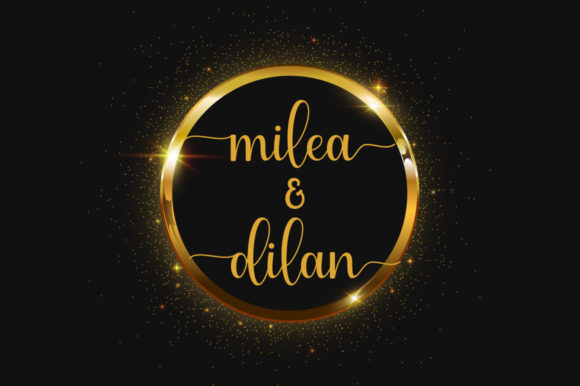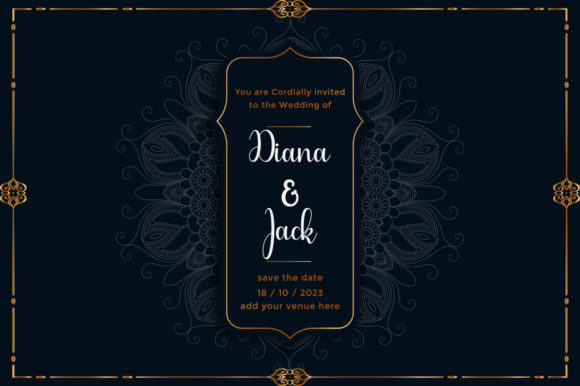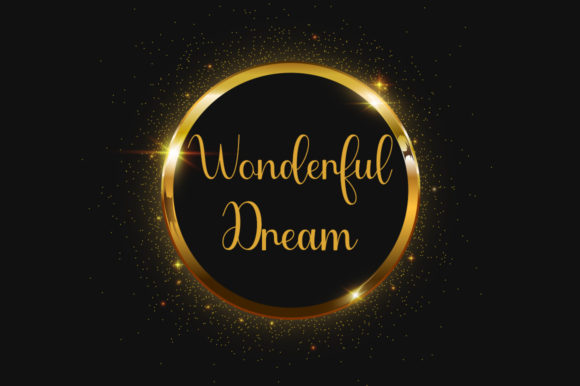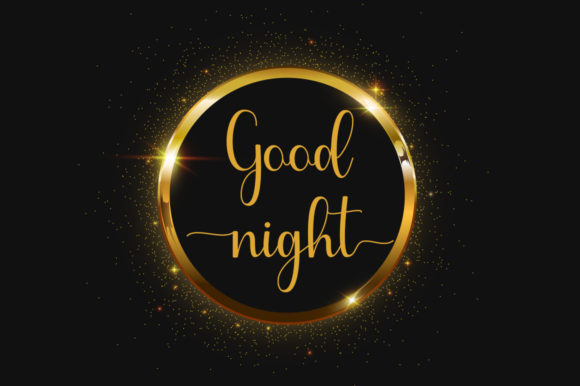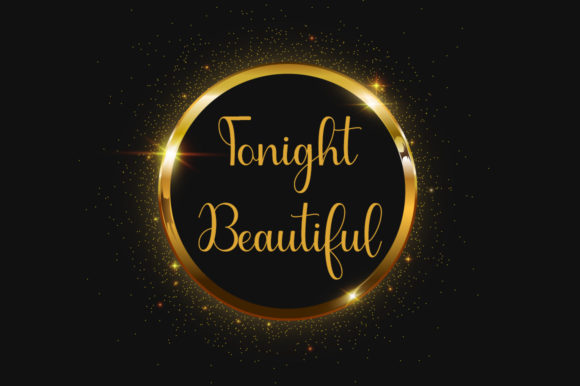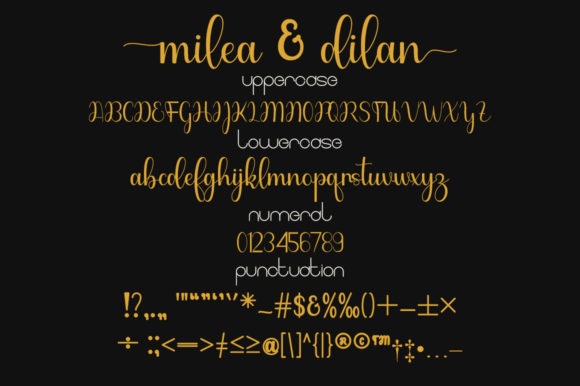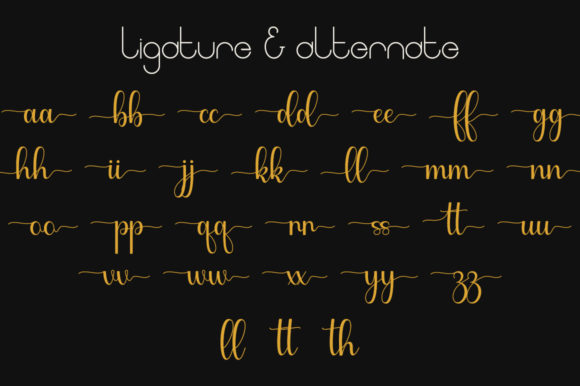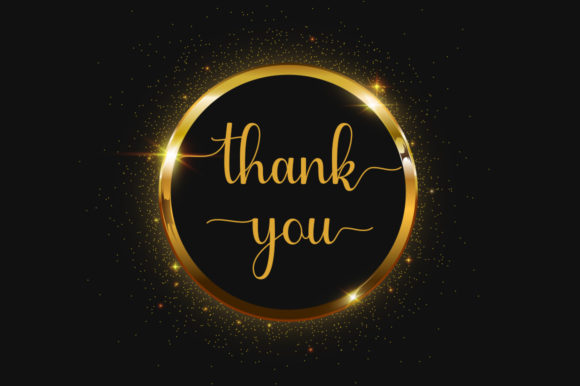
Milea Dilan Font
About Milea Dilan Font
Introducing “Milea Dilan,” a well-balanced and romantic script font that will add a touch of elegance and charm to your designs. With its meticulously crafted details and perfectly balanced characters, this font is a true masterpiece.
“Milea Dilan” exudes a sense of sophistication and romance. Its flowing curves and graceful strokes create a harmonious and captivating visual experience. Each letter is carefully designed to ensure a seamless connection, giving the font a natural and organic feel.
The attention to detail in “Milea Dilan” is evident in its intricate swashes and glyphs. With its PUA encoding, accessing these additional characters and decorative elements is effortless, allowing you to add even more beauty and uniqueness to your designs.
This font is a perfect choice for a variety of projects. Use it to create stunning wedding invitations that capture the essence of love and romance. The delicate and refined nature of “Milea Dilan” will elevate your wedding stationery, making it truly unforgettable.
Whether you’re designing elegant logos, exquisite branding materials, or eye-catching social media graphics, “Milea Dilan” will make a lasting impression. Its timeless style and attention to detail add a touch of sophistication and class to any visual identity.
In addition to its elegance, “Milea Dilan” also offers versatility. It adapts beautifully to various design themes, from vintage and classic to modern and contemporary. Its well-balanced characters and romantic vibe make it suitable for a wide range of creative projects.
Let “Milea Dilan” be the muse for your next design endeavor. Embrace its beauty, embrace its romance, and let it inspire you to create captivating and memorable designs. Whether it’s invitations, branding, packaging, or any other creative project, this font will bring your vision to life with its impeccable style and attention to detail.
So, unlock the potential of “Milea Dilan” and let its well-crafted and romantic script enhance your designs. With its neatly crafted details and PUA encoding, you have all the tools at your disposal to create stunning visuals that leave a lasting impression. Let “Milea Dilan” be your go-to font for adding a touch of elegance and romance to your creative projects.